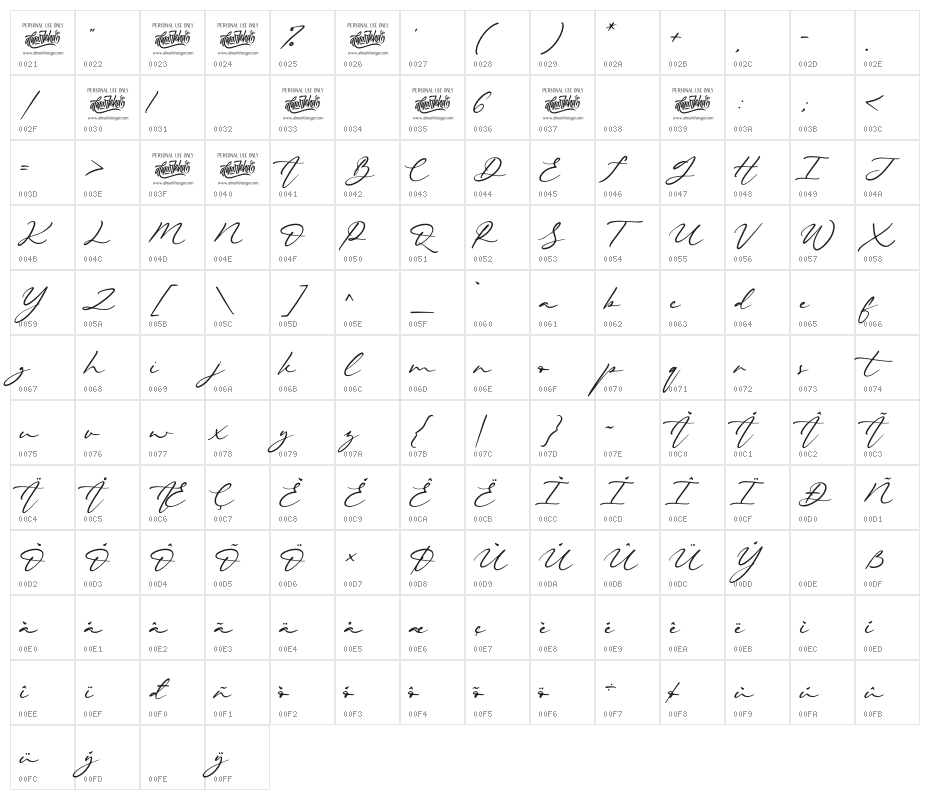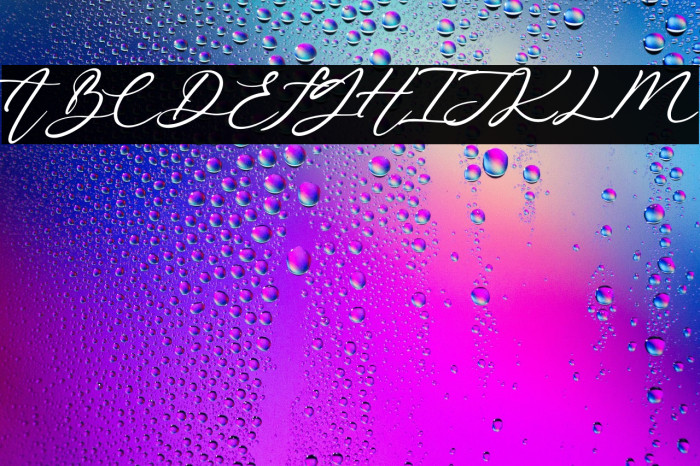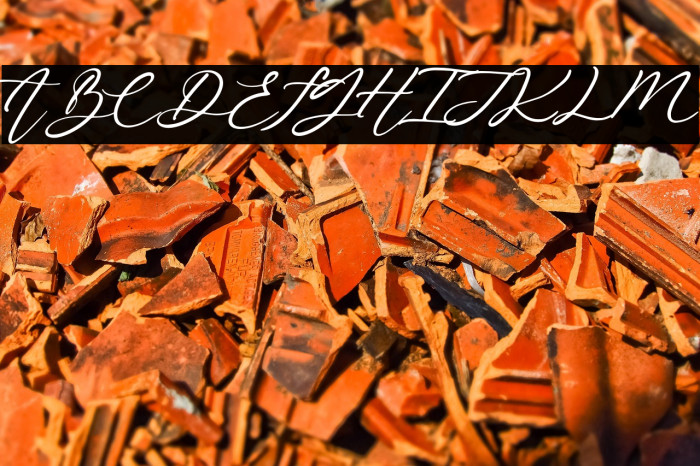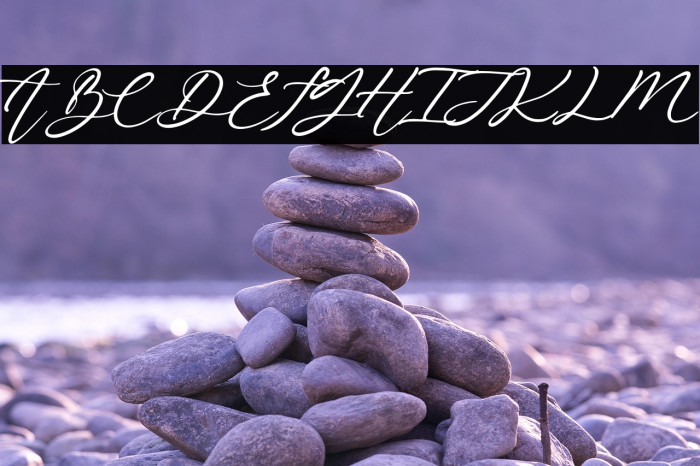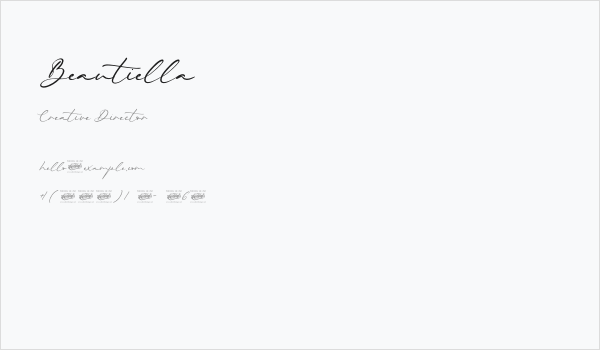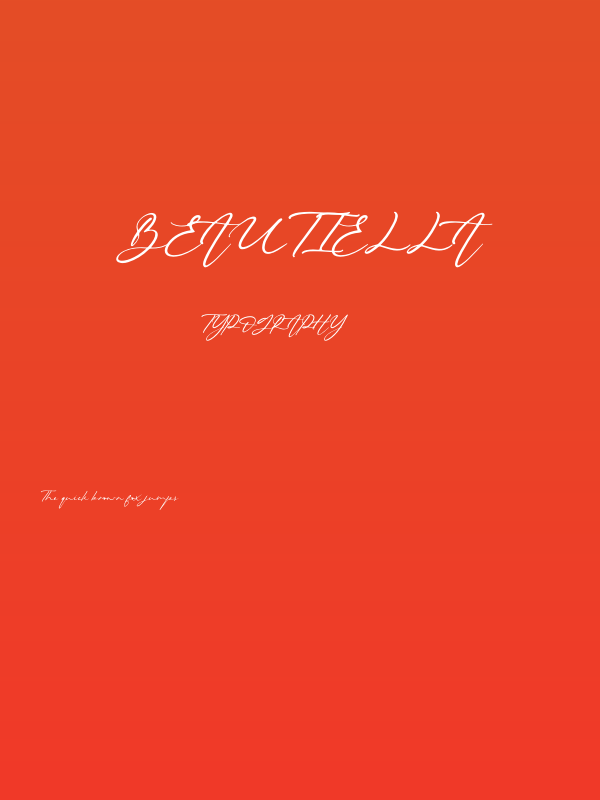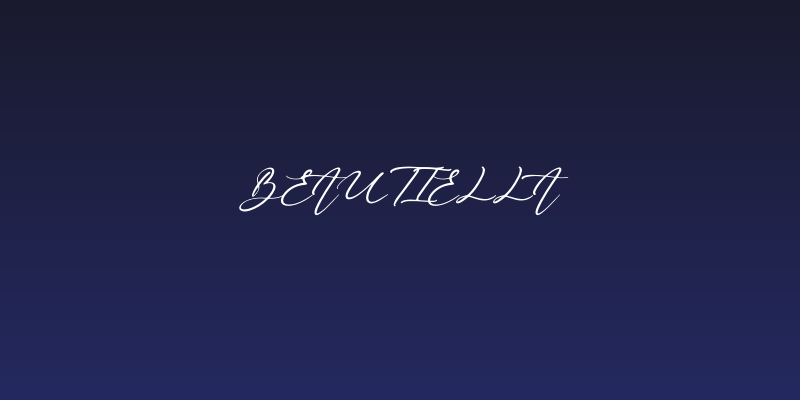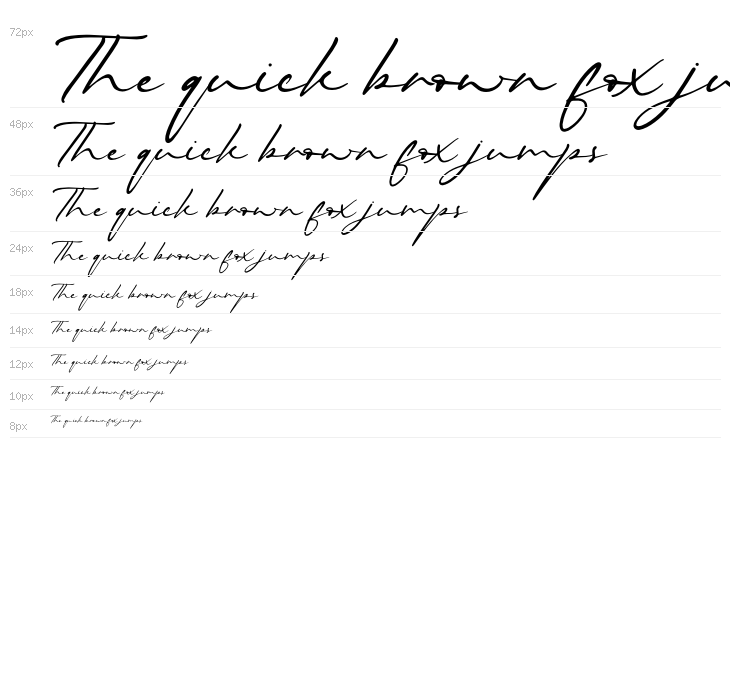
Beautiella Font
Beautiella Description
This font exudes a graceful and fluid handwritten style, characterized by its elegant and flowing script. The letters are connected in a cursive manner, giving it a natural and organic feel. The uppercase letters are slightly more elaborate with sweeping lines, while the lowercase letters maintain a consistent and smooth flow. The numbers and special characters are designed to complement the overall aesthetic, with a touch of sophistication and flair. This font is perfect for adding a personal touch to any design, conveying a sense of elegance and refinement.
| Overall Style | Elegant, Handwritten |
| Proposed Projects | Ideal for wedding invitations, personal branding, greeting cards, and elegant packaging designs. |